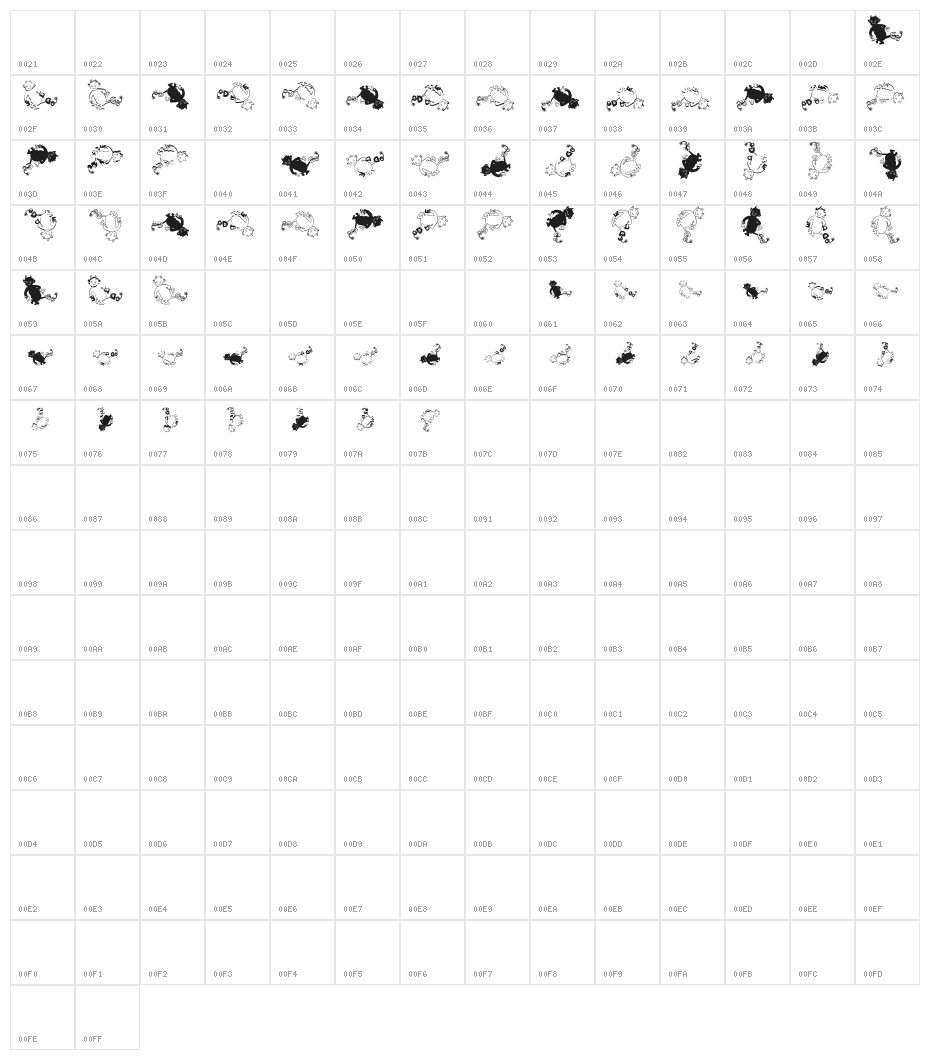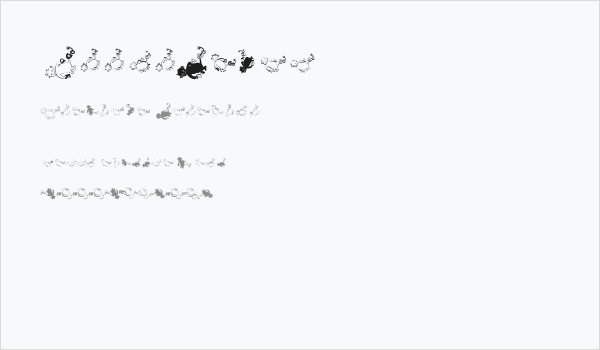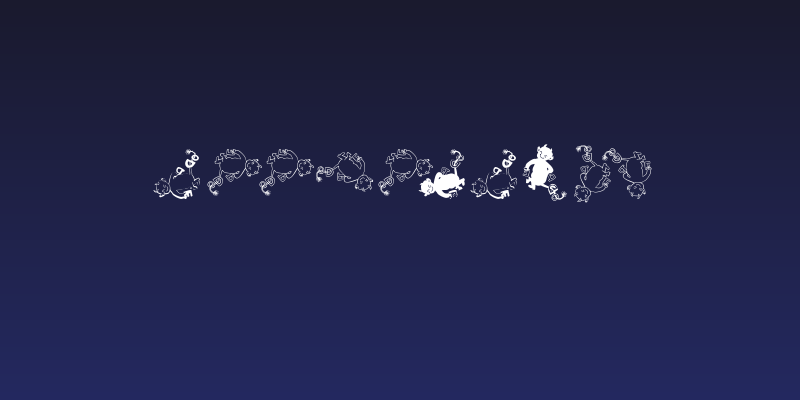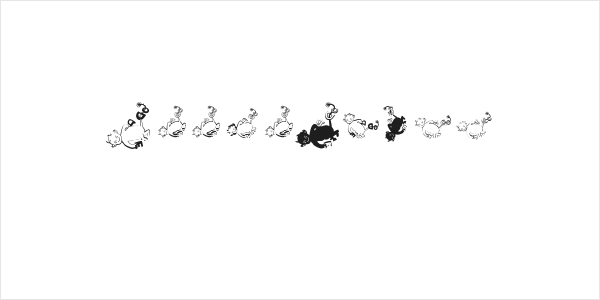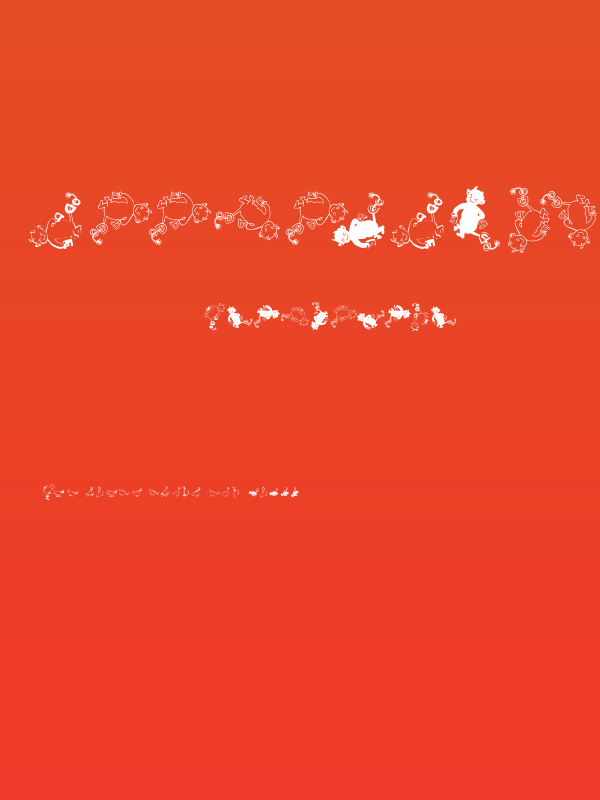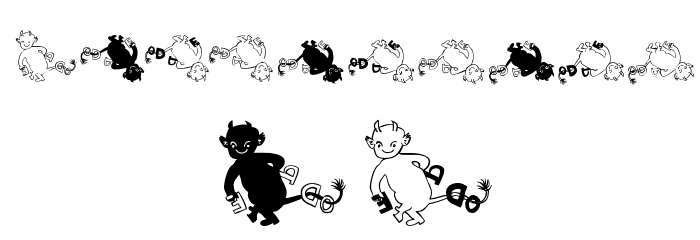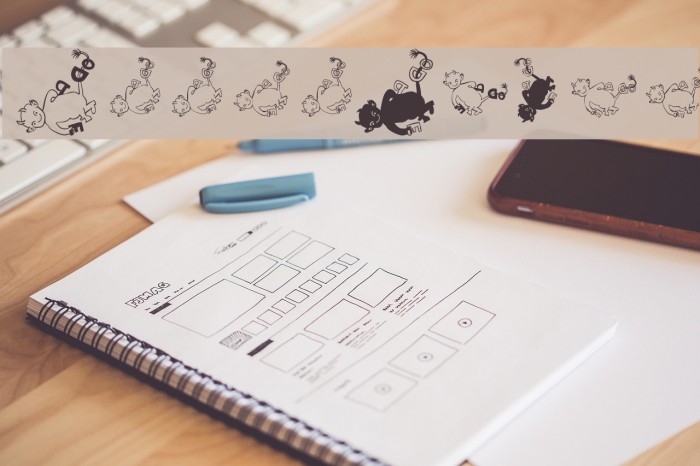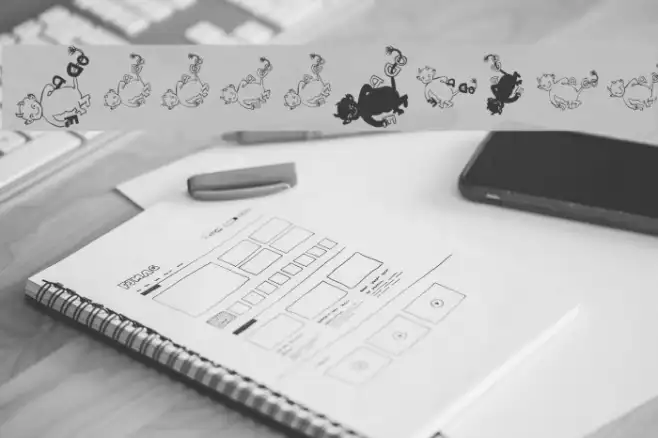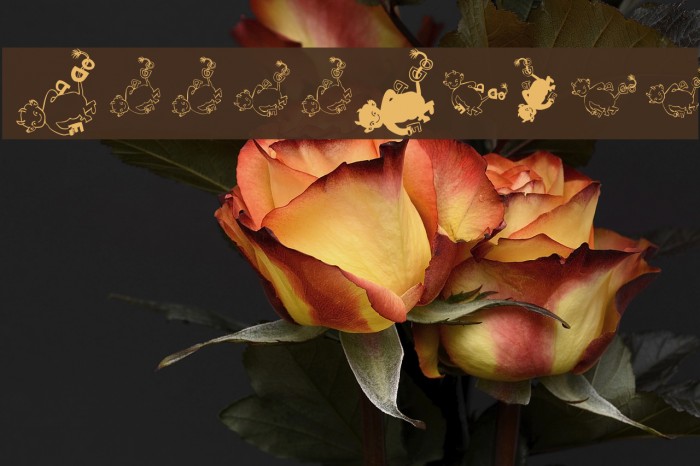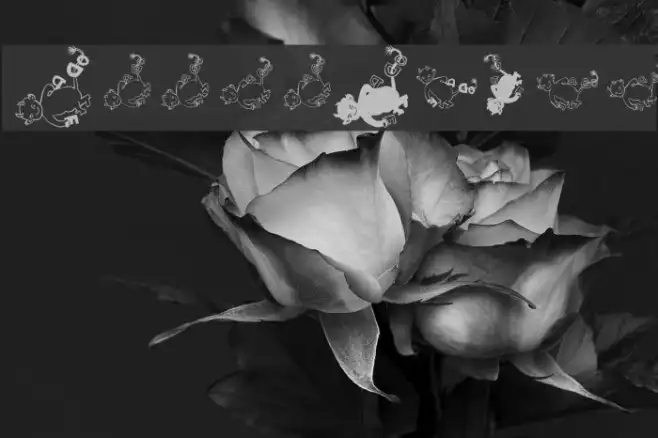
ErrorDevil Font
ErrorDevil Description
A playful decorative font featuring alternating black and white cartoon devil characters, each holding a trident and sporting a mischievous expression. The characters are highly stylized and whimsical, with exaggerated features and a hand-drawn look. There are no traditional letterforms; instead, each glyph is represented by a unique devil illustration.
| Overall Style | Playful, Whimsical, Decorative |
| Use Case | Logos, Posters, Themed Headlines, Event Graphics |
| Proposed Projects | Children's party invitations, Halloween decorations, playful posters, themed event graphics. |